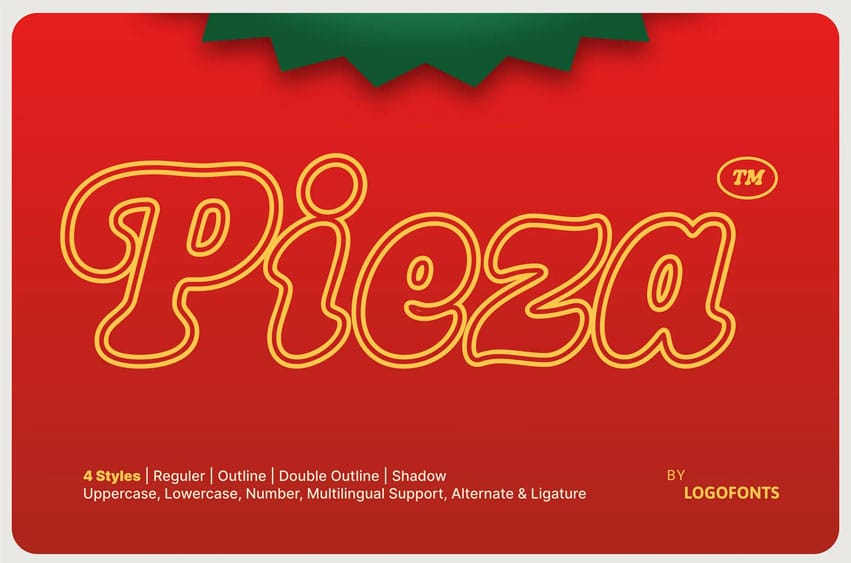
Pieza Font is a display font designed to bring a warm, delicious, and friendly vibe to every design. Inspired by the culinary world, Pieza is perfect for bakery logos, coffee shops, cafes, restaurants, and food menus like pizza, burgers, candy, and chocolate.
With its fun and approachable letterforms, Pieza delivers an inviting and appetizing look, making every design feel more engaging. It works great for food packaging, brand identity, menu design, shop signage, and digital promotions.
Whether it’s for a kitchen brand, cooking project, or complete food brand identity, Pieza offers a unique and recognizable typographic style full of character.
4 Style Included
- Pieza Reguler
- Pieza Double Outline
- Pieza Outline
- Pieza Shadow
Designed for elegance, crafted for timeless branding.